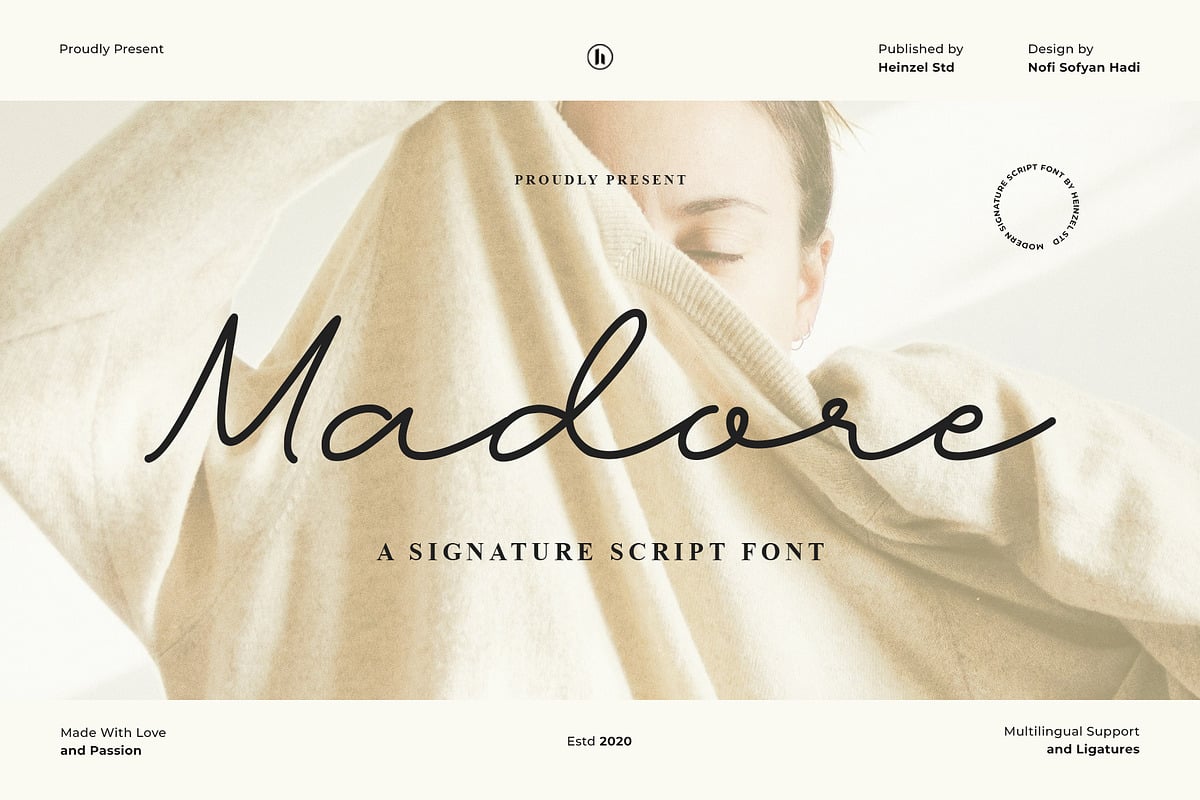
Madore Elegant Signature Script Font
Madore is the signature script font that makes every word feel personally penned, polished, and luxuriously elegant.
Crafted with a smooth handwritten flow, graceful letter connections, and refined character, Madore captures the authenticity of a real handwritten signature while keeping a modern, sophisticated edge. It's the kind of typeface that instantly elevates a design from ordinary to high-end.
Madore is perfectly suited for a wide range of creative applications, including:
- Fashion and beauty branding
- Wedding stationery and invitations
- Logos and personal branding
- Photography and editorial layouts
- Social media graphics and packaging
- Boutique and luxury brand identities
Its flowing script style works beautifully in both minimalist compositions and high-end creative layouts. Whether you're crafting a romantic wedding invitation, a boutique logo, or a stylish social media graphic, Madore brings a distinctly personal and memorable quality to your typography.
Multilingual support and ligatures are included, offering added flexibility for creating natural-looking, handcrafted typography across a variety of languages and design contexts.